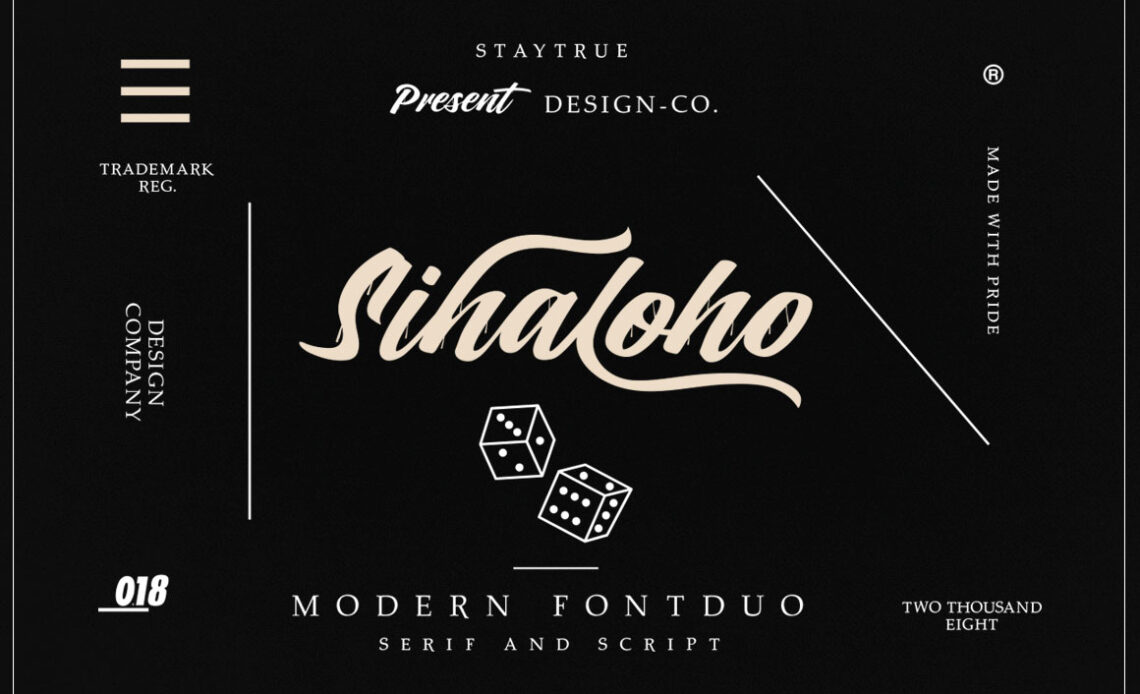
Get swept off your feet by the captivating Sihaloho font duo, a remarkable creation by lickermelody, designed to ignite your creativity and leave an unforgettable impression on your audience.
Immerse yourself in the world of Sihaloho, where beauty and functionality seamlessly intertwine. This exquisite font family, comprising a captivating script and a bold serif, exudes elegance and sophistication, while maintaining remarkable versatility, ready to adapt to your every creative endeavor.
Express your unique vision with the mesmerizing Sihaloho script font, its graceful lines and alluring curves adding a touch of charm and personality to your designs. Watch as your words dance across the page, flowing effortlessly with a rhythm that captivates and enchants.
Discover the power of the Sihaloho serif font, its strong and confident strokes commanding attention and conveying a sense of authority and stability. Create striking headlines, elegant logos, and sophisticated body text that exude professionalism and leave a lasting impact.
But the Sihaloho font duo doesn't stop there. This remarkable download comes complete with a treasure trove of extras, ready to elevate your designs and unleash your creativity. From an array of swashes and alternates to ligatures and multilingual support, Sihaloho provides endless opportunities to add depth, dimension, and intrigue to your projects.
Unleash your inner artist and let the Sihaloho font duo guide you on a creative adventure. Its charm, versatility, and captivating style will transform your designs, leaving your audience in awe. Make Sihaloho your font of choice and witness the difference it makes.